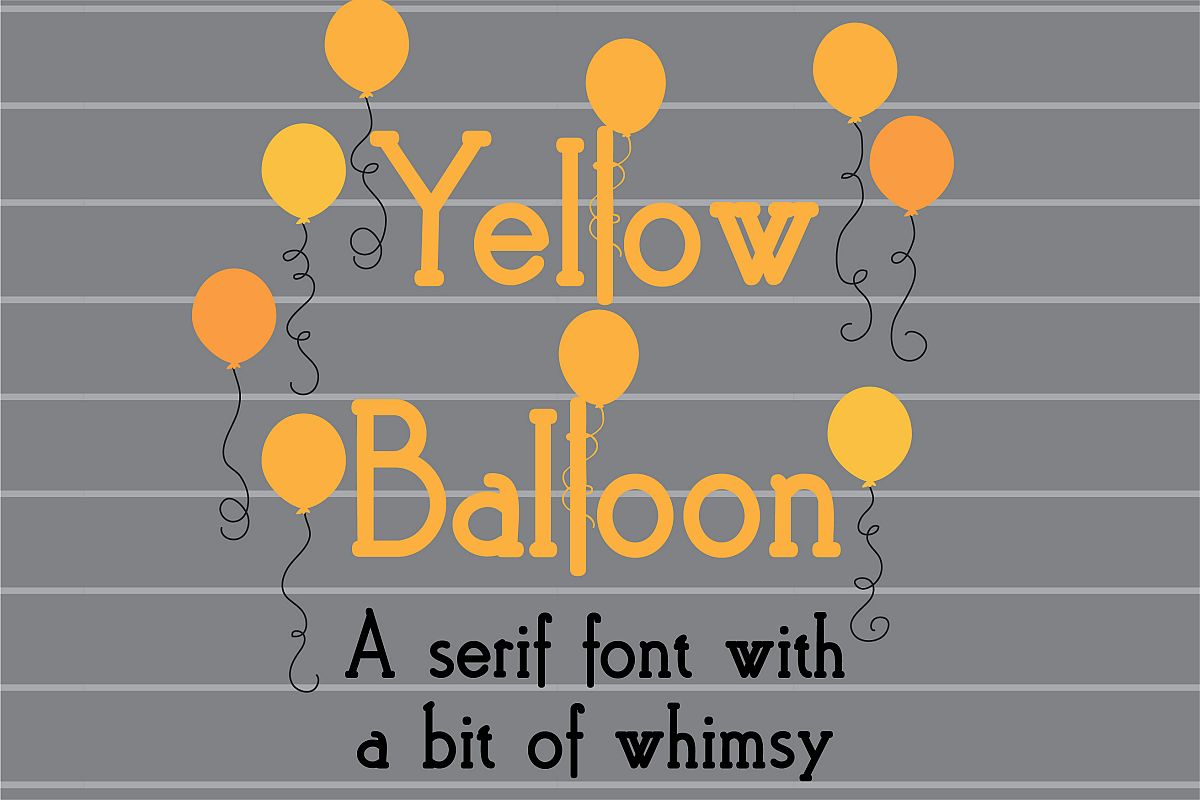
PN Yellow Balloon
This art-deco, inspired serif font has a bit of a modern feel and a ballon-wrapped "bar" that you can sub in for a lowercase "l" or "1". Also the bullet point is a balloon.